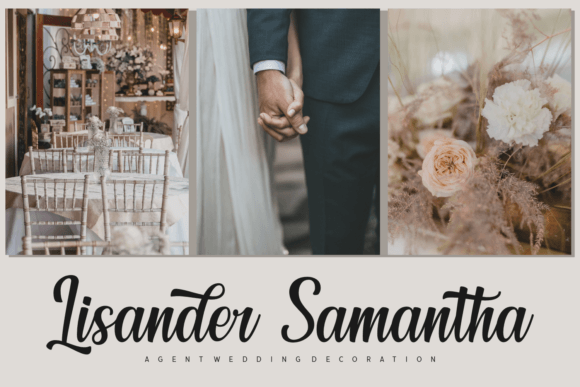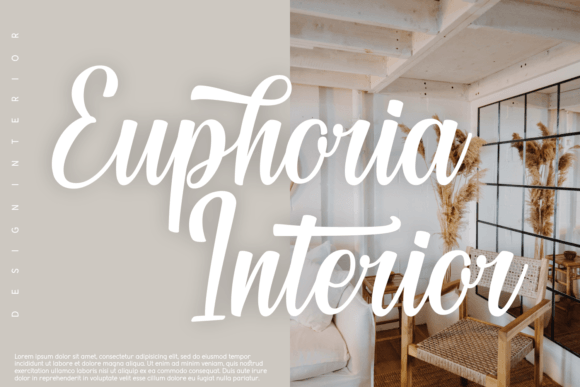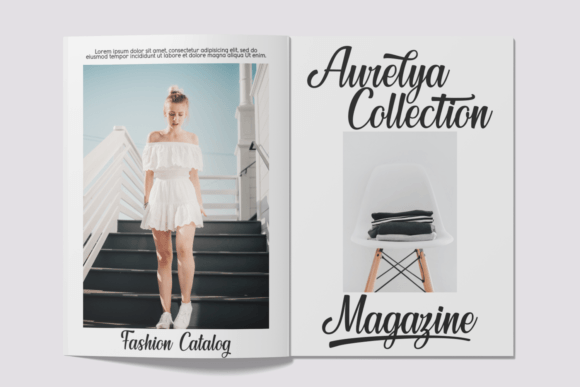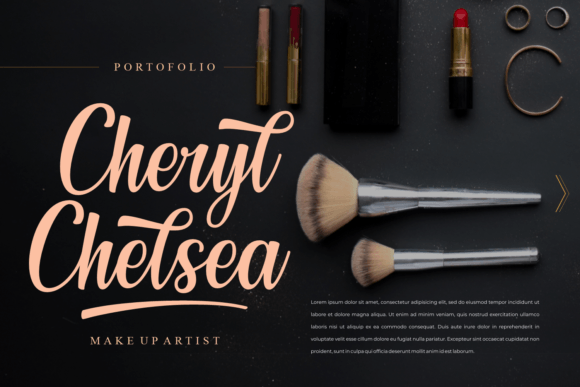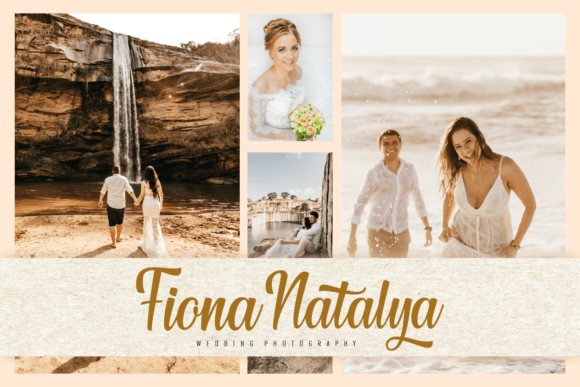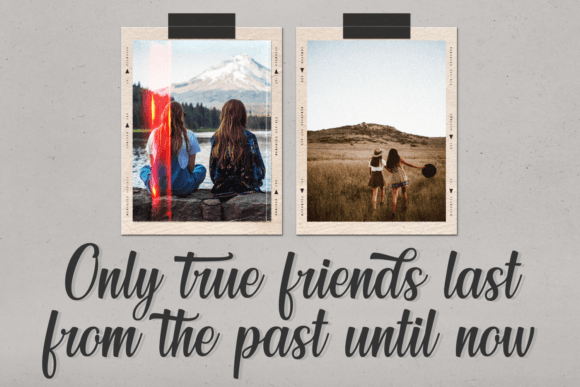
The Quest for the Perfect Font: Discovering Carloten
Ah, the eternal struggle of finding the perfect font for our designs. I still remember the time I was working on a wedding invitation project, and my client asked for a font that was both elegant and playful. I scoured the internet, tried out countless fonts, but nothing seemed quite right. That was until I stumbled upon Carloten, a bold and dreamy script font that has since become a staple in my design toolkit.
What is Carloten?
Carloten is a beautiful, elegant script font that adds an authentic, calligraphic note to any design. Its stunning rhythm makes it perfect for a wide range of projects, including invitations, logos, quotes, fashion and beauty-themed projects, and more. And the best part? It’s PUA encoded, making it easy to access all the glyphs and swashes.
My Honest Review of Carloten
- ✨ Elegant and sophisticated design that’s perfect for high-end projects
- 💫 Beautiful rhythm that adds a touch of elegance to any design
- 🎨 Highly versatile and can be used for a wide range of projects
While Carloten is an amazing font, there are a few things to keep in mind. For example, ⚠️ some of the swashes and glyphs can be a bit finicky to access, especially if you’re new to using OpenType features. Additionally, 🤔 the font may not be suitable for very small text sizes or body text, as it can become a bit too ornate.
The Story Behind Carloten
Carloten was designed by a talented team of typographers who wanted to create a font that was both elegant and accessible. Inspired by traditional calligraphy, Carloten features beautiful swashes and glyphs that add a touch of sophistication to any design. While the exact story behind the font’s creation is unclear, it’s evident that the designers put a lot of love and care into crafting a truly special font.
| Author | Andrian Dehasta |
Q: Is Carloten suitable for body text or small text sizes?
A: While Carloten is a beautiful font, it’s best suited for larger text sizes or headings. For body text or small text sizes, you may want to consider a simpler font.